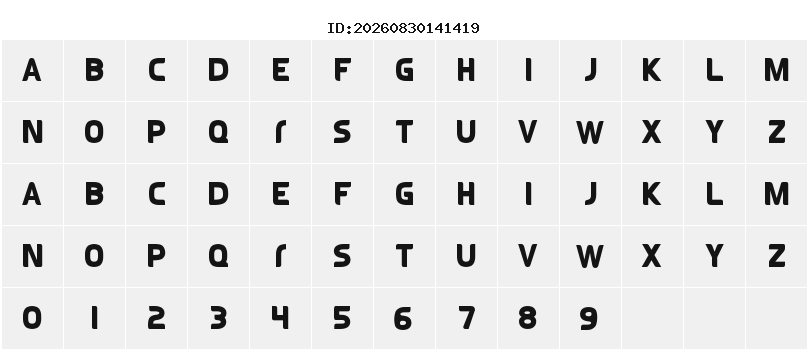
The Real Woman Preview
• Font Name: The Real Woman
• Full Font Name: The Real Woman
• Version: Version 1.00 July 18, 2015, initial release
About The Real Woman.ttf
The Real Woman.ttf is a modern, elegant sans-serif font designed for ultimate readability and visual harmony. Perfect for branding, headlines, web design, and print materials.